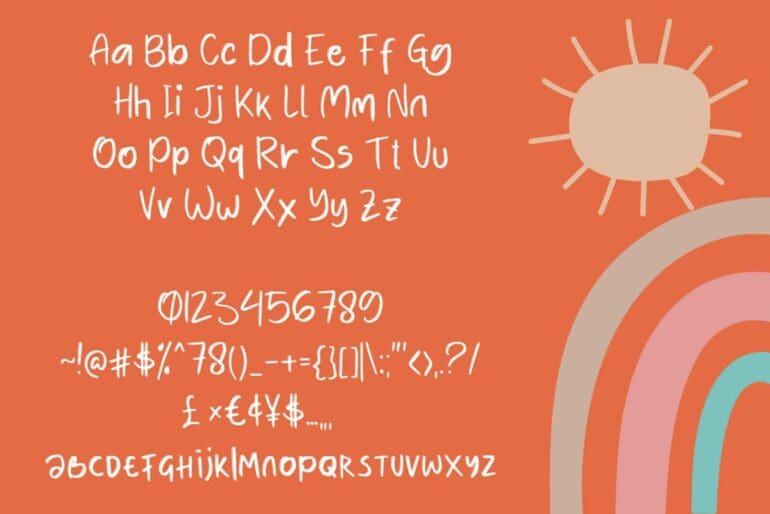
Park Zoo Font
Park Zoo Font. This pair was inspired by Kids poster design that I saw on some coffee shops, It was crafted by hand especially to add a natural handmade feeling in its brand identity than I make it clean with pentool.